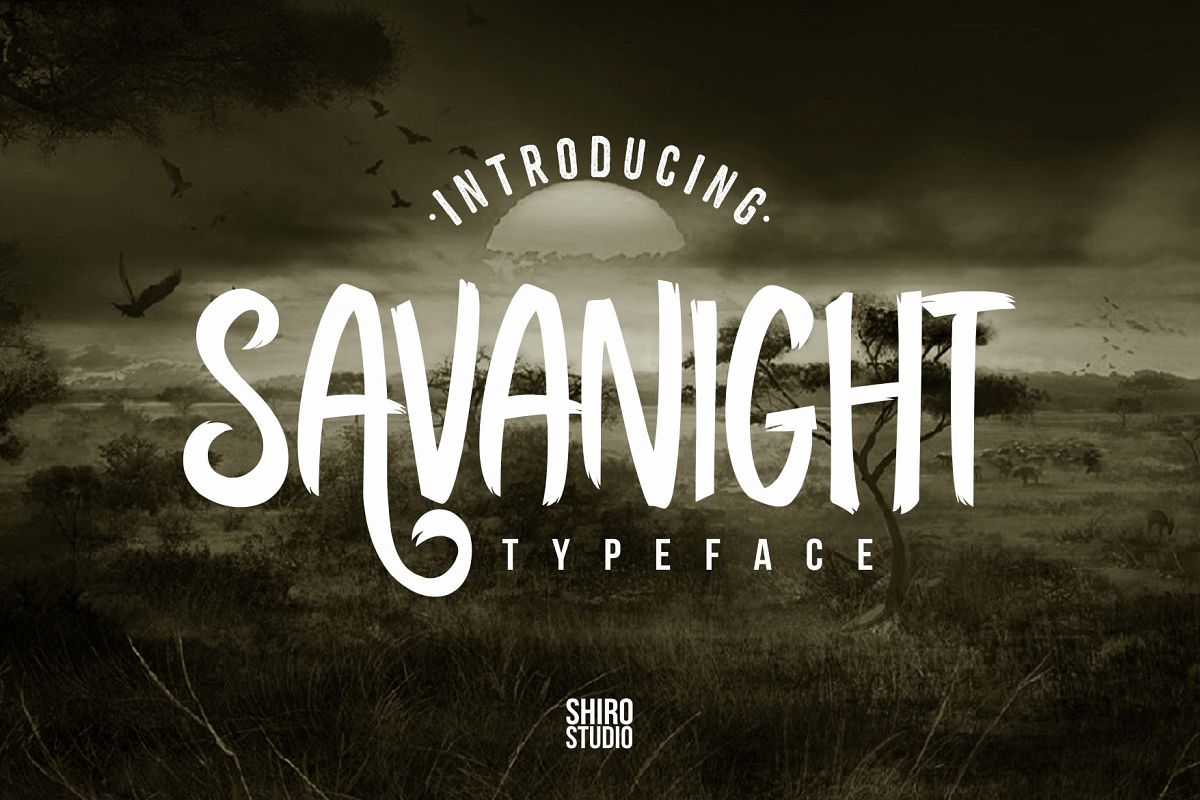
The Savanight Typeface
Introducing a new cool display font with cool characters and OpenType Features.
The Savanight Typeface os very cool for branding, poster, logo, and any other artworks.
- Stylistic Alternate
- Stylistic Set (ss01)
- Stylistic Set (ss02)
- Stylistic Set (ss03)
- Swash
- Standar Ligature